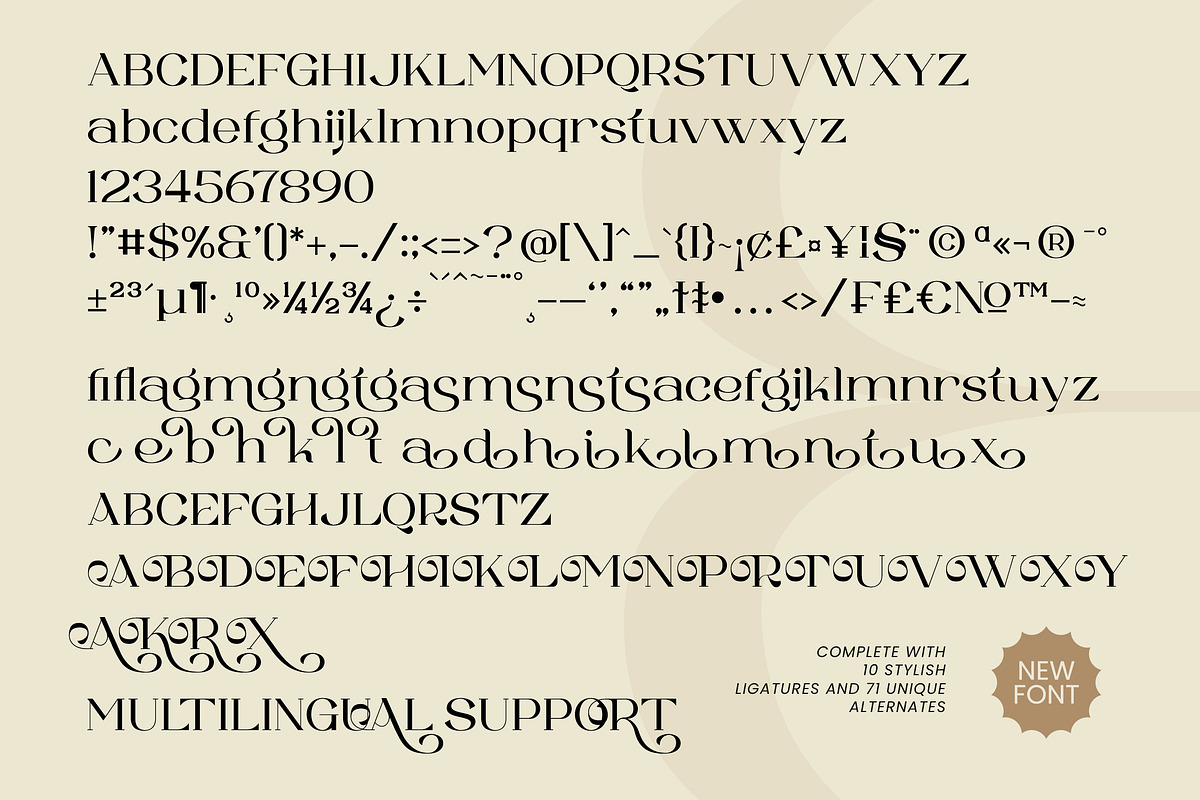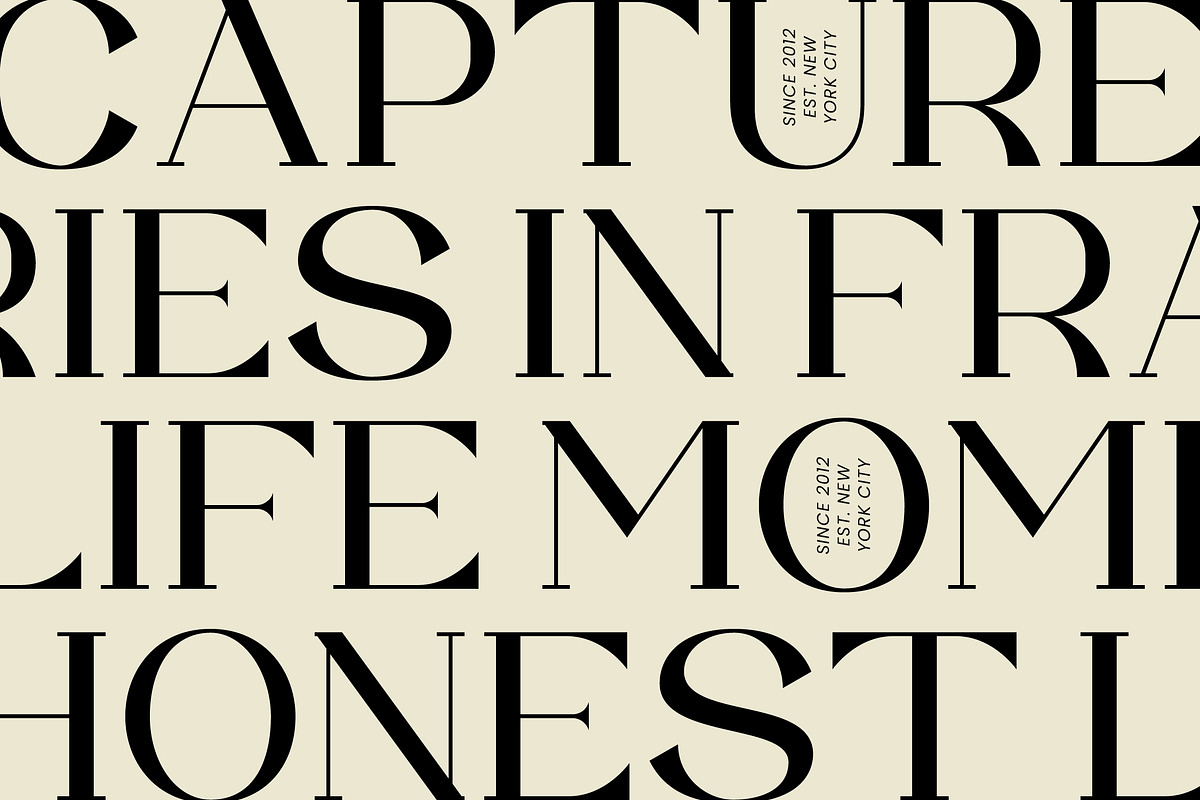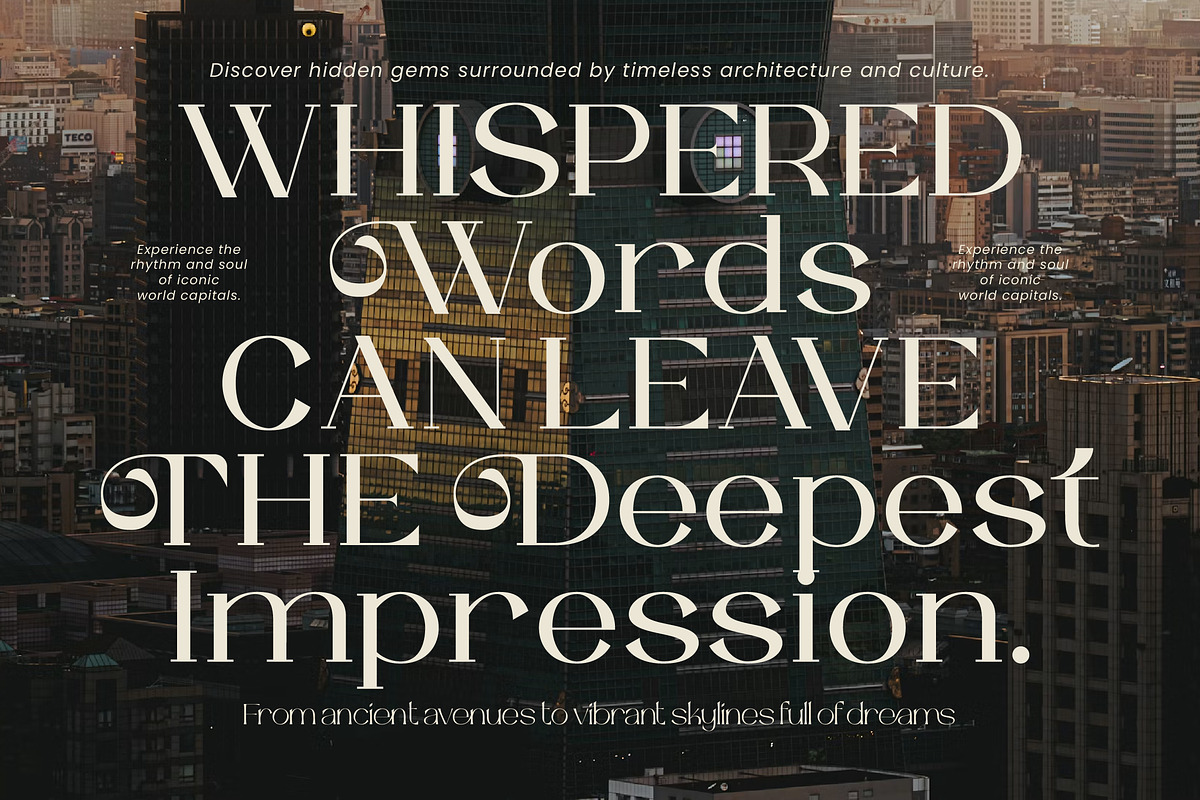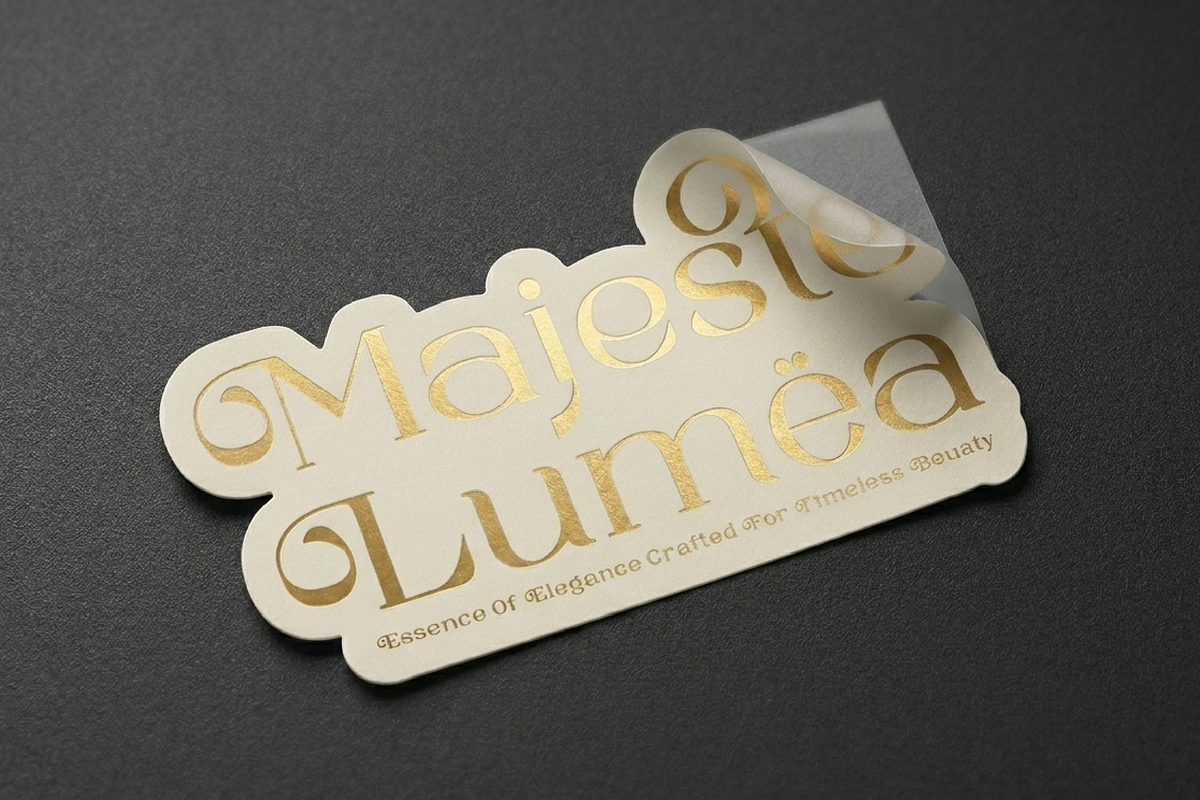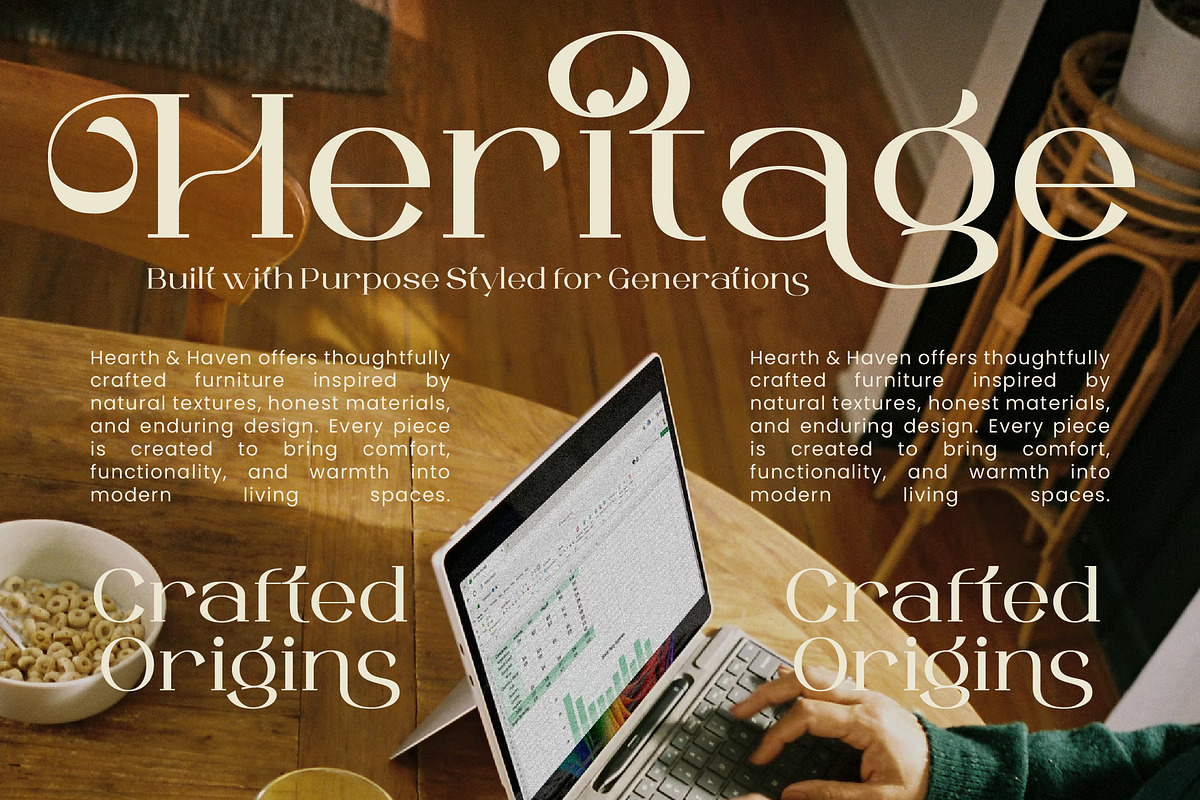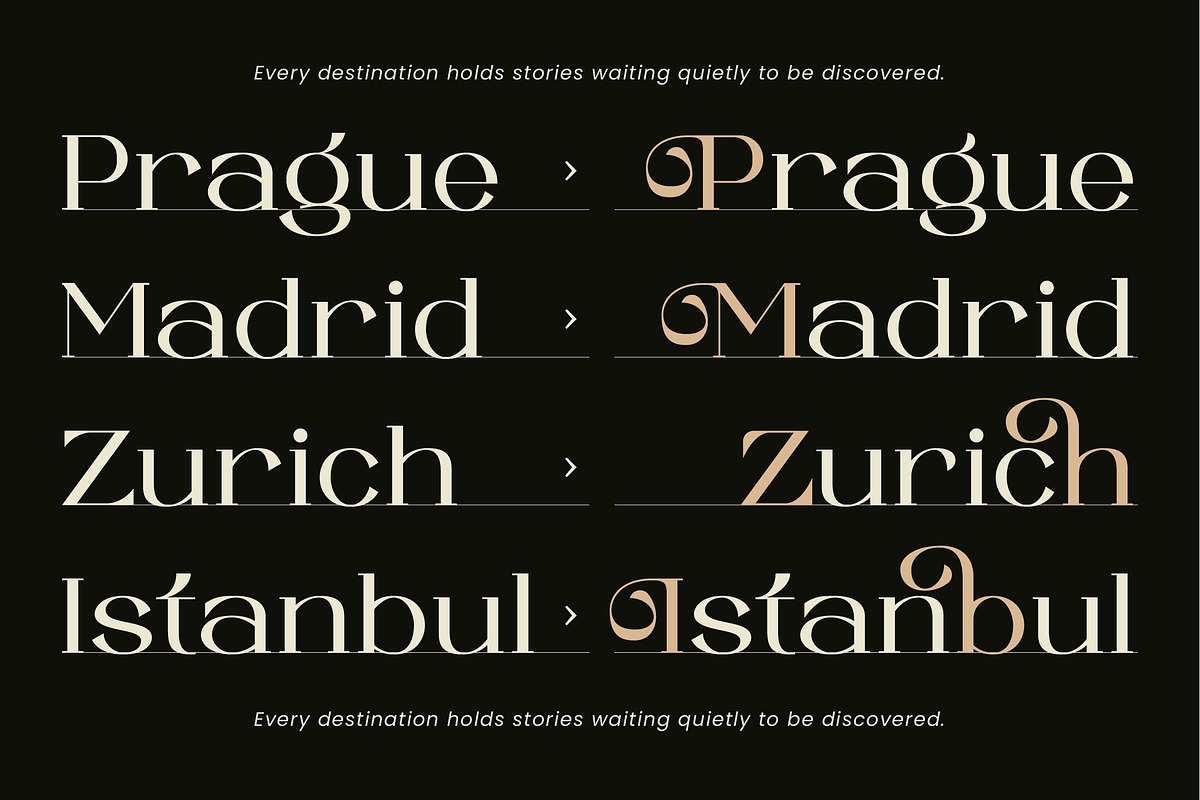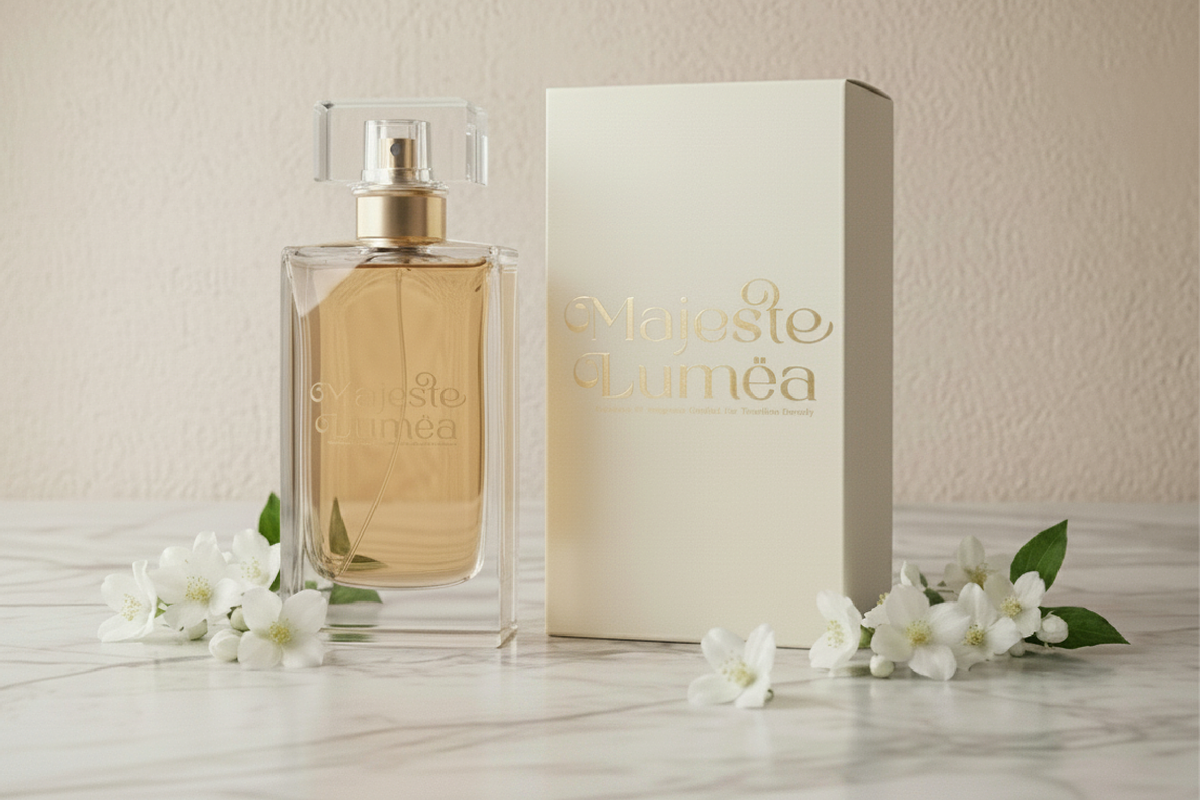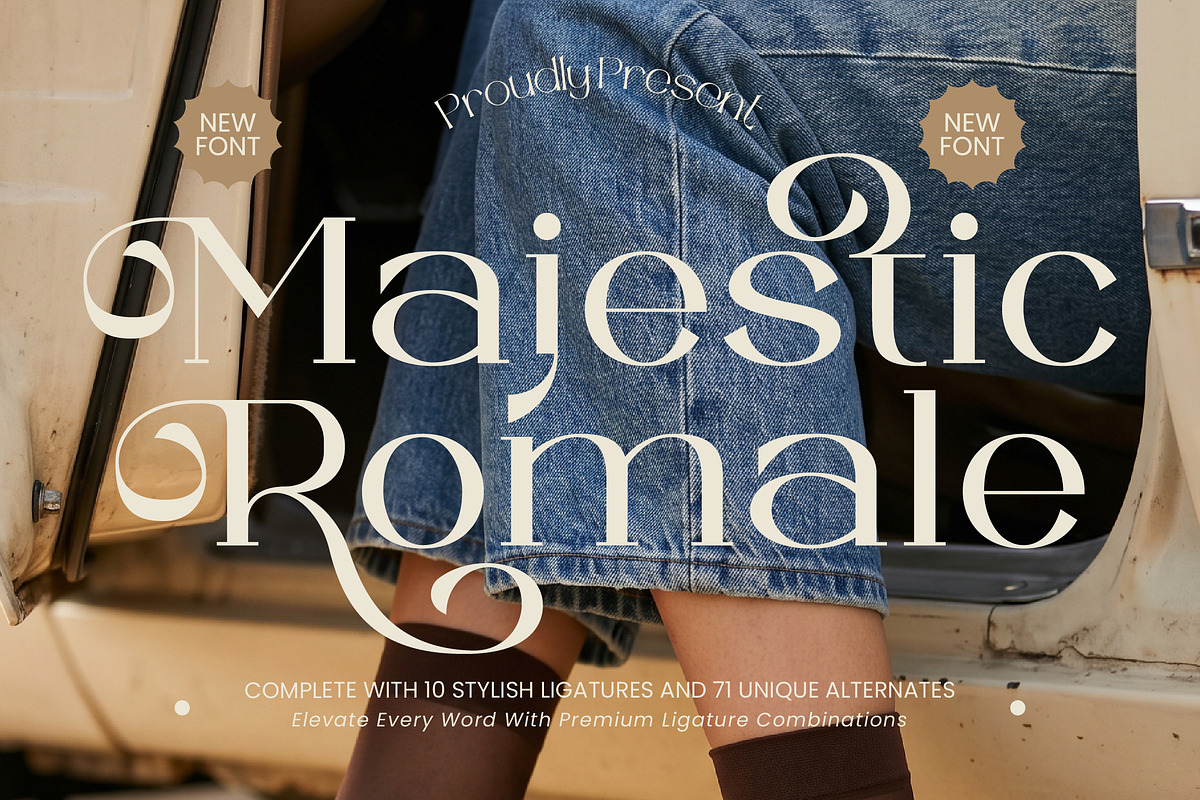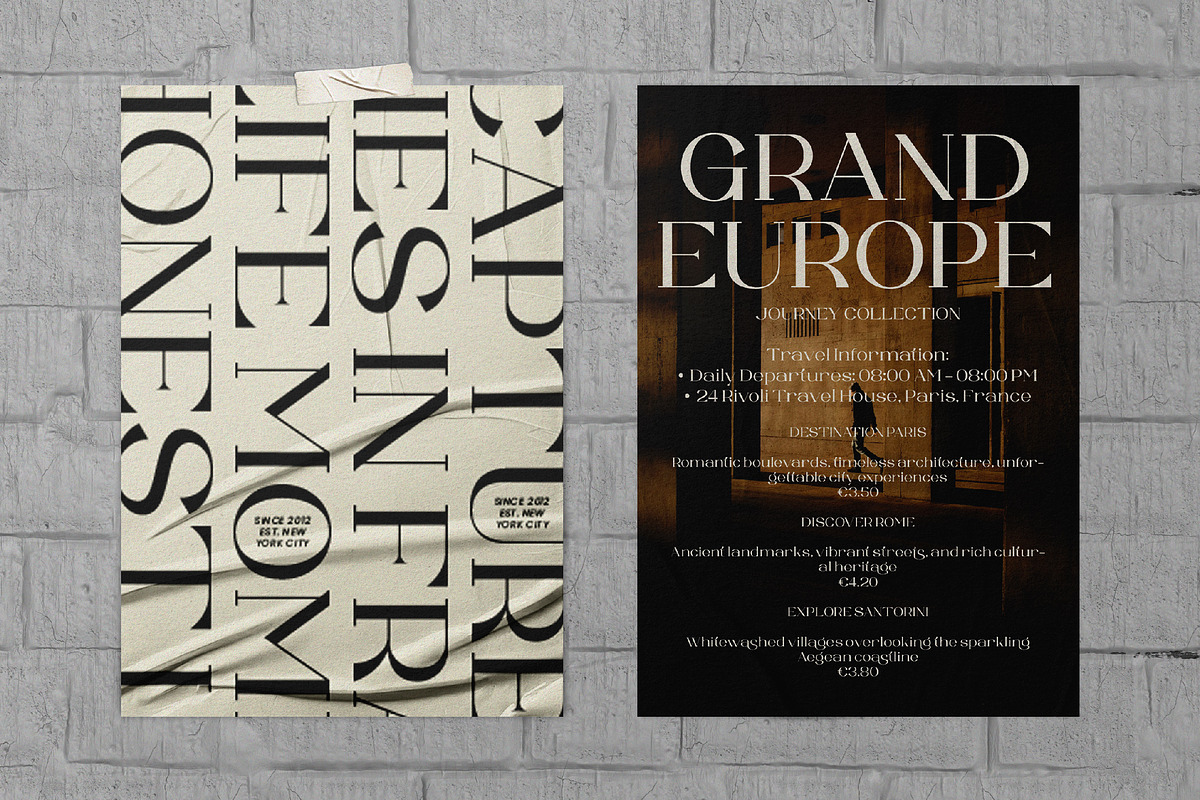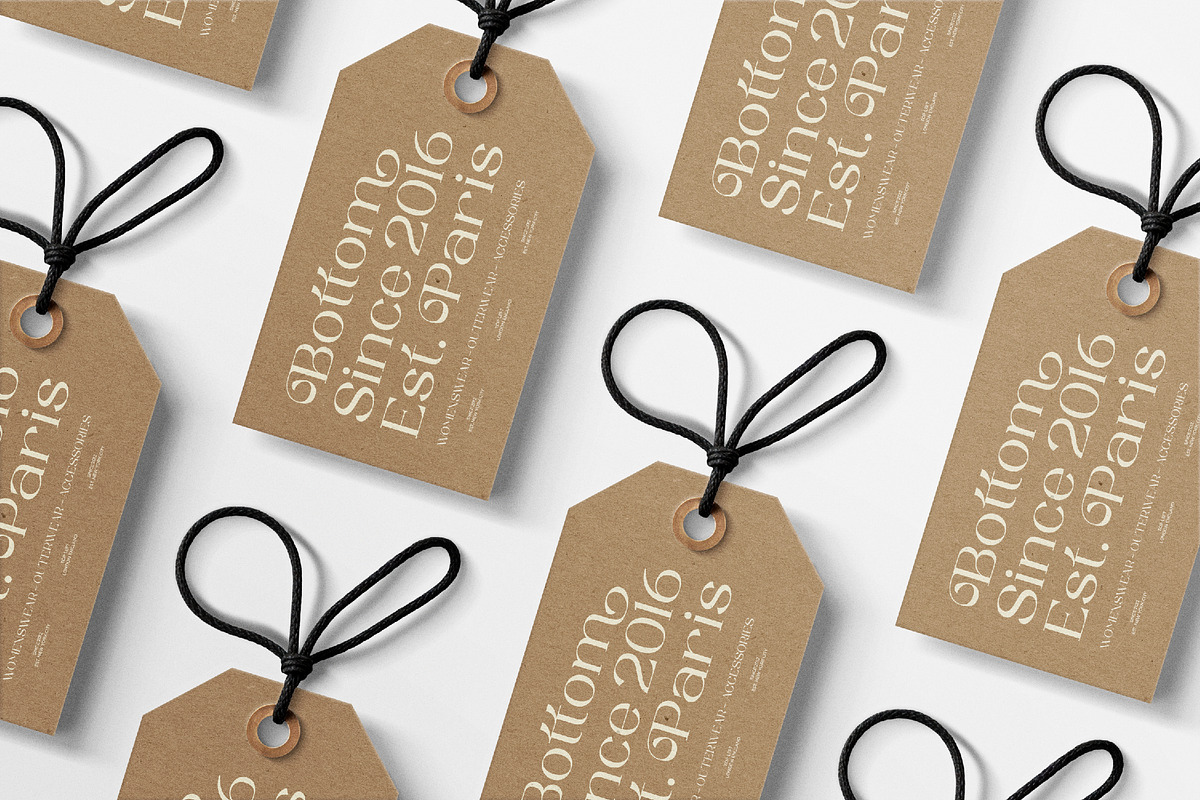
Majestic Romale Luxury Serif
Majestic Romale - Elegant Serif with Modern Ligatures
Elevate your designs with Majestic Romale, a luxurious and sophisticated serif font designed to bring a touch of timeless elegance to your creative projects. With its high-contrast strokes and gracefully curved terminals, this font is the perfect choice for designers looking to create high-end branding, editorial layouts, and impactful headlines.
Majestic Romale is more than just a typeface; it's a versatile design tool. It comes packed with 10 stylish ligatures and 71 unique alternates, allowing you to create custom-looking typography with just a few clicks. Whether you're designing a fashion magazine, a premium wine label, or a minimalist wedding invitation, this font adapts beautifully to your vision.
10 Unique Ligatures: Seamlessly connect characters for a custom, hand-crafted feel.
71 Stylish Alternates: Explore a wide range of character variations to find the perfect fit for every word.
Multilingual Support: Reach a global audience with support for multiple languages.
Branding & Identity: Create a memorable and prestigious brand presence.
Editorial Design: Elevate magazines, books, and digital publications.
Wedding Stationery: Add a touch of romance and class to invitations and menus.
Packaging Design: Make your products stand out on the shelf with premium typography.
Social Media Graphics: Create eye-catching quotes and promotional content.
Why Choose Majestic Romale?
In a world of generic typefaces, Majestic Romale stands out by offering a perfect balance between classic serif tradition and modern design flexibility. Each character has been meticulously crafted to ensure optimal legibility and aesthetic appeal, making it a reliable choice for both print and digital media.